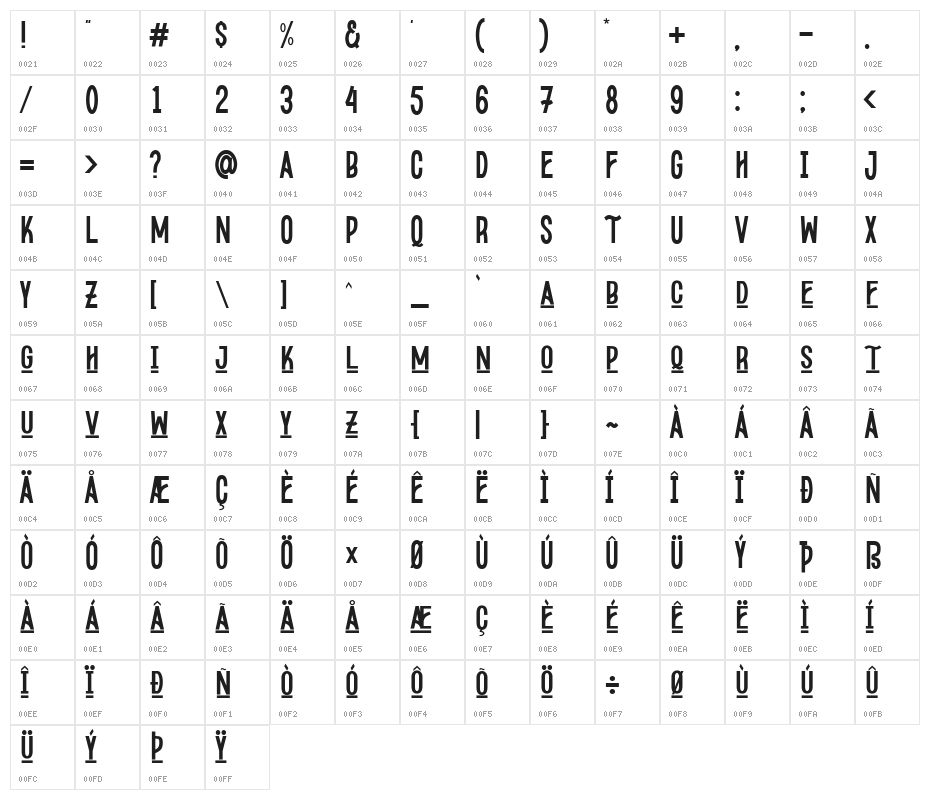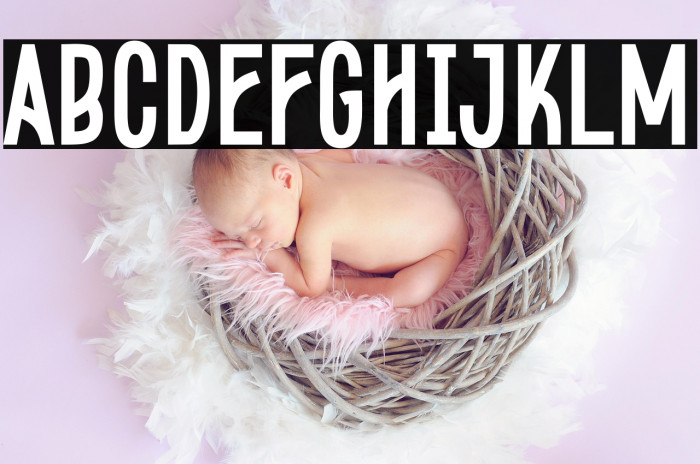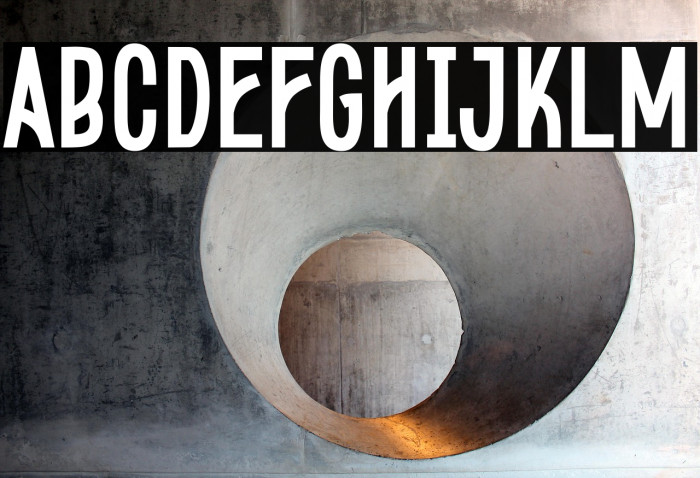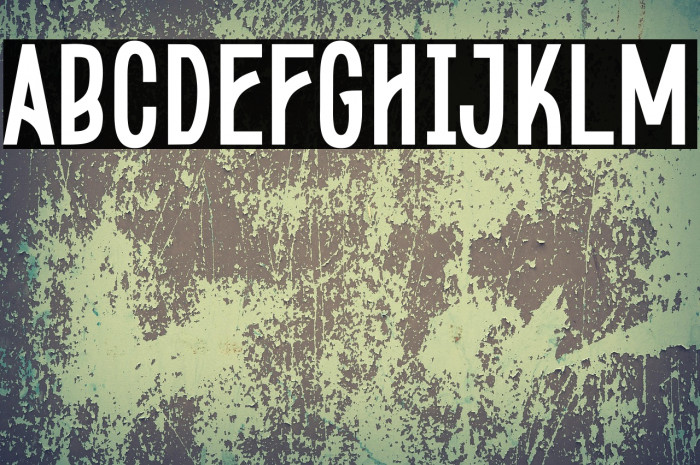
Kopodaps Font
Kopodaps Description
This font features a bold and striking design with a strong presence. The uppercase letters are tall and narrow, with a slight curvature that adds a touch of elegance. The lowercase letters maintain a consistent height, ensuring readability while preserving the font's unique style. Numbers are equally bold, matching the overall aesthetic. Special characters are designed with the same attention to detail, making them stand out. The font's boldness and distinct character make it suitable for impactful designs.
| Proposed Projects | Ideal for posters, headlines, branding, and any project requiring a bold statement. |